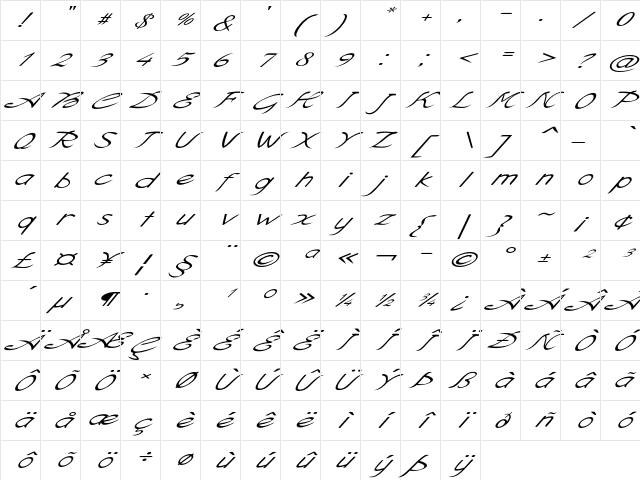
Cloverleaf Extra-expanded Italic Free Font
Cloverleaf Extra-expanded Italic
Style: Extra-expanded Italic
Cloverleaf Extra-expanded Italic
Design Context for Cloverleaf
Cloverleaf is a composed and adaptable typeface that performs quietly and consistently across a wide range of design contexts. The slanted form adds forward momentum and visual energy.
Pro Tip: Use Cloverleaf for emphasis, pull quotes, and subheadings where its slanted energy can add rhythm to the layout.